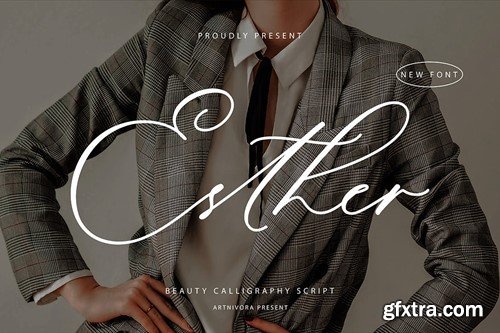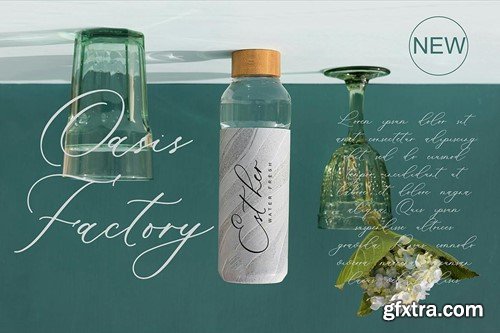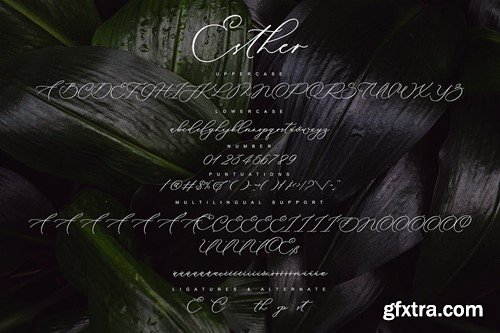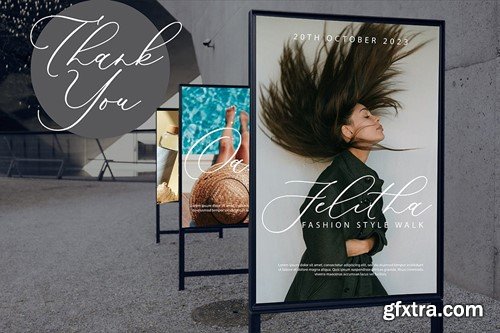
艾斯特 - 四字书法字体 4X4LA7S
Esther - Calligraphy Script Font
Introducing Esther, a simple and calligraphy script font. So perfect for you who needs a typeface for logo designs, magazine, social media, brochure, and many more. Features Files Includes Thank you for checking and i hope you enjoy it.